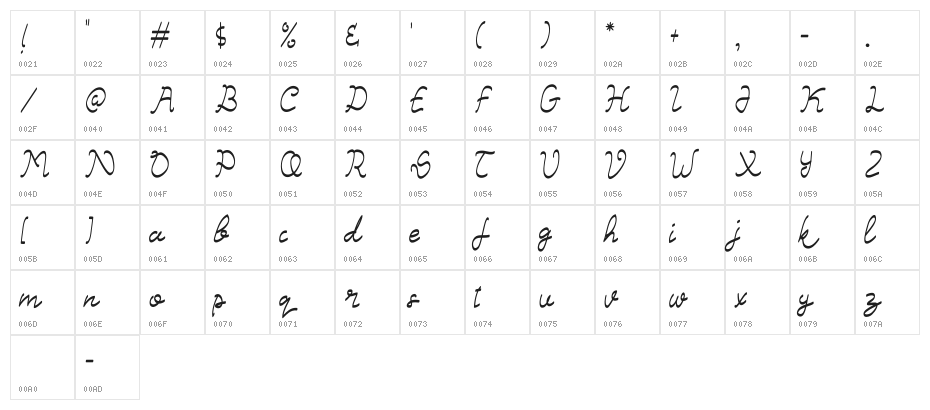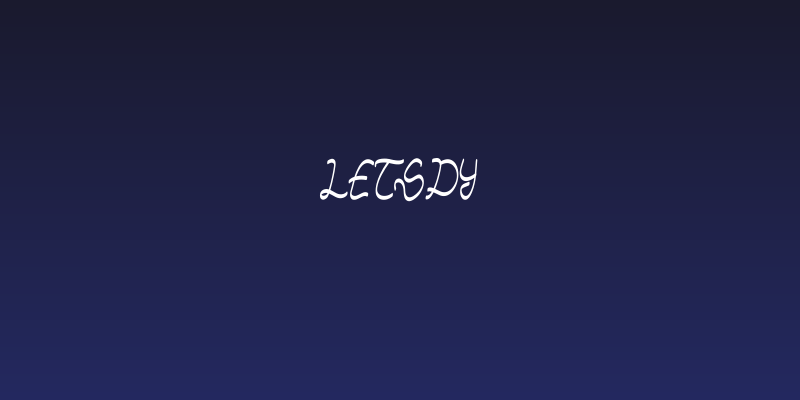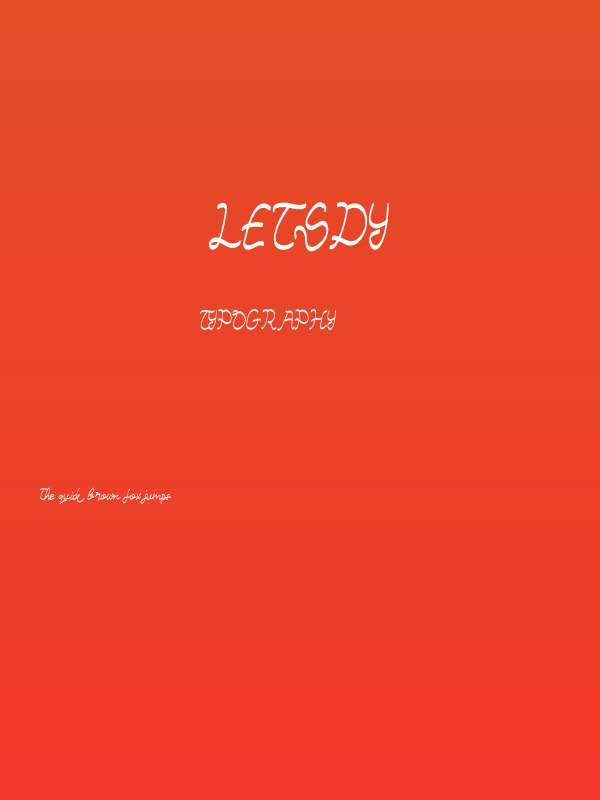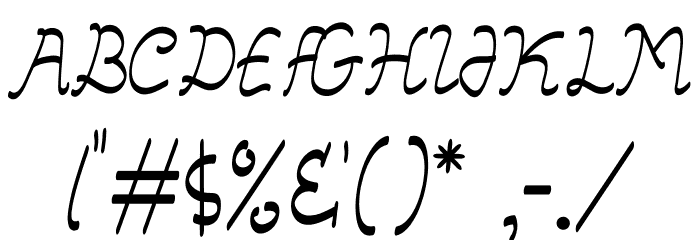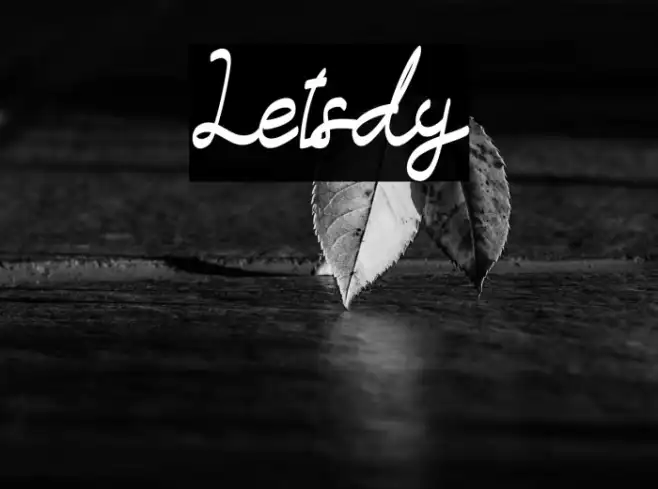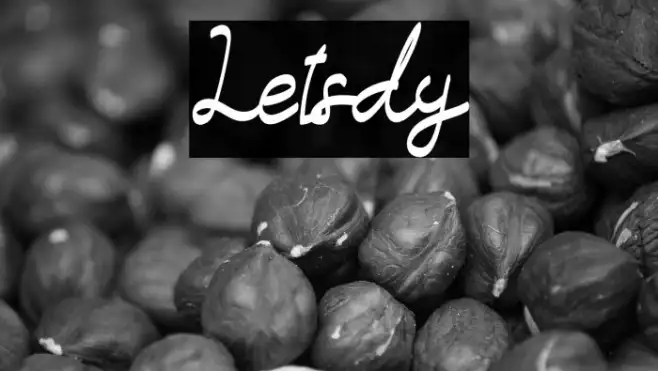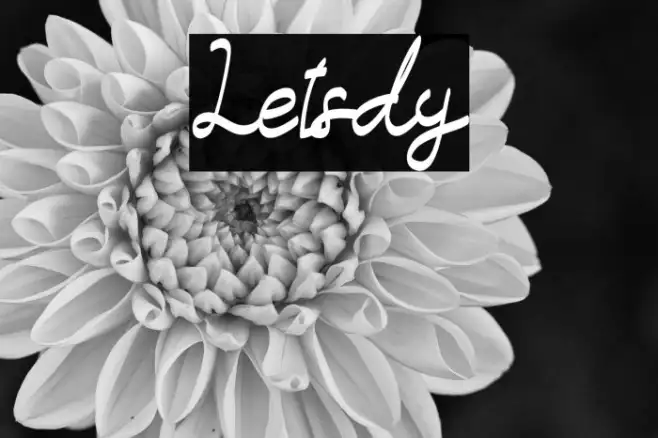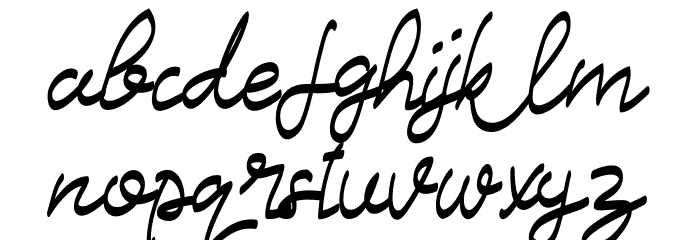
Letsdy Font
Letsdy Description
This font features a flowing, cursive style that mimics elegant handwriting. The uppercase letters are slightly more structured, while the lowercase letters exhibit a more fluid and connected appearance. The characters have a consistent stroke width, giving them a balanced and harmonious look. The special characters maintain the same cursive style, ensuring uniformity across the font. This font exudes a sense of sophistication and grace, making it suitable for formal and decorative purposes.
| Proposed Projects | Ideal for wedding invitations, greeting cards, personal branding, and elegant logos. |